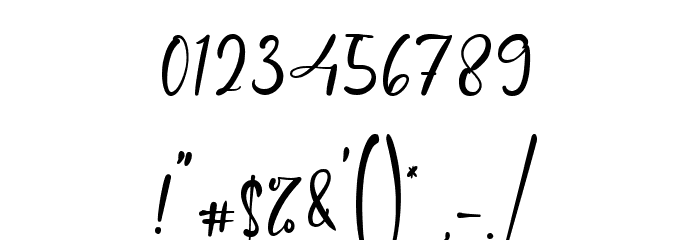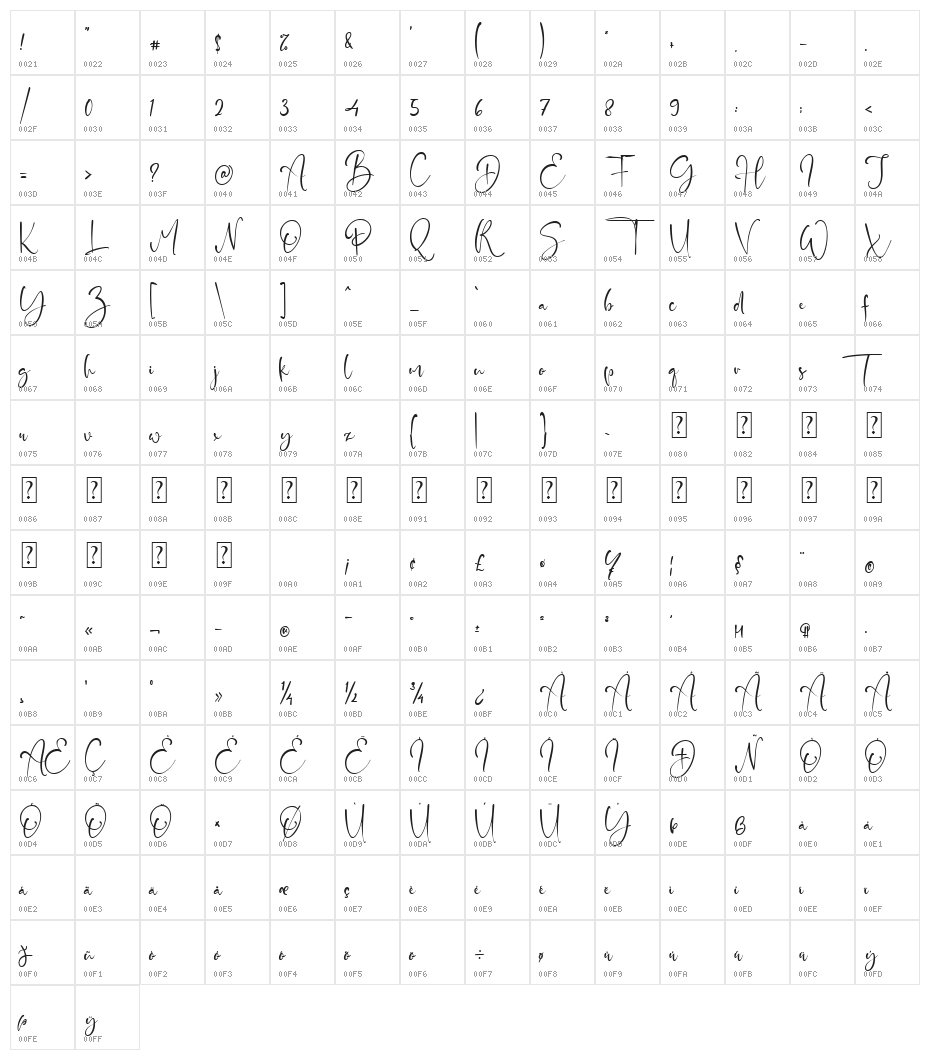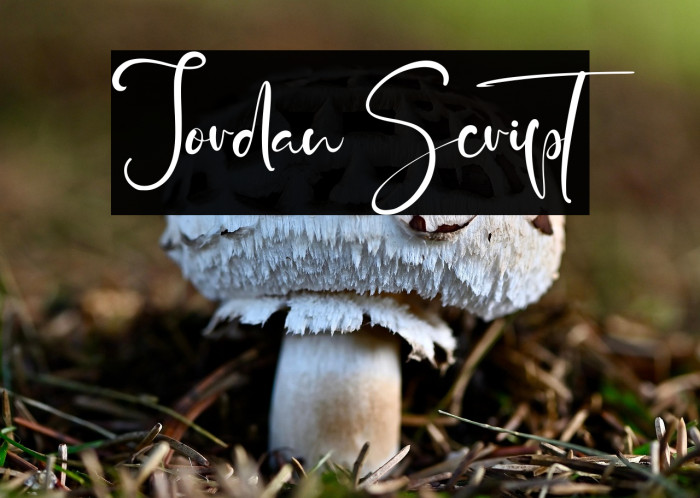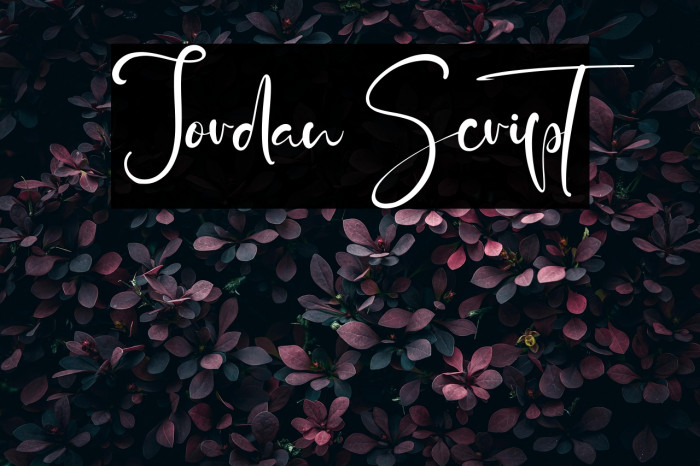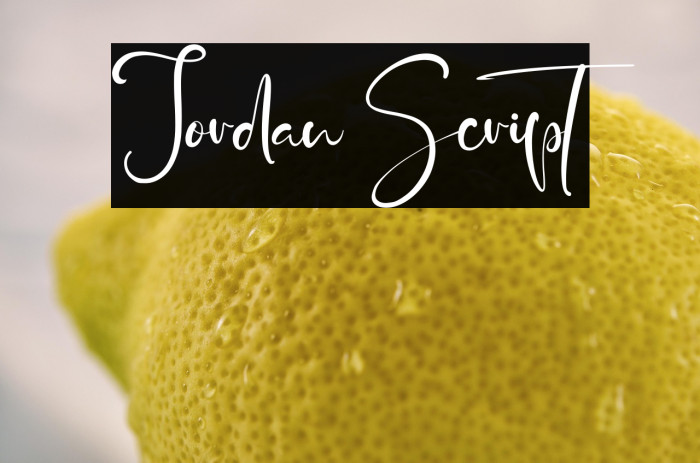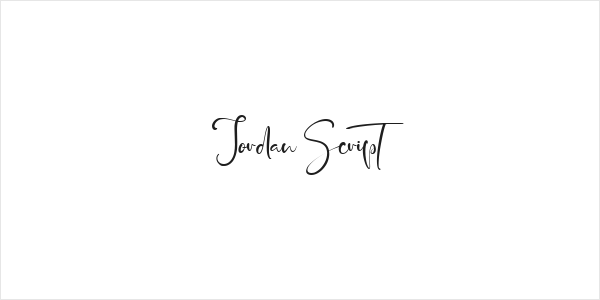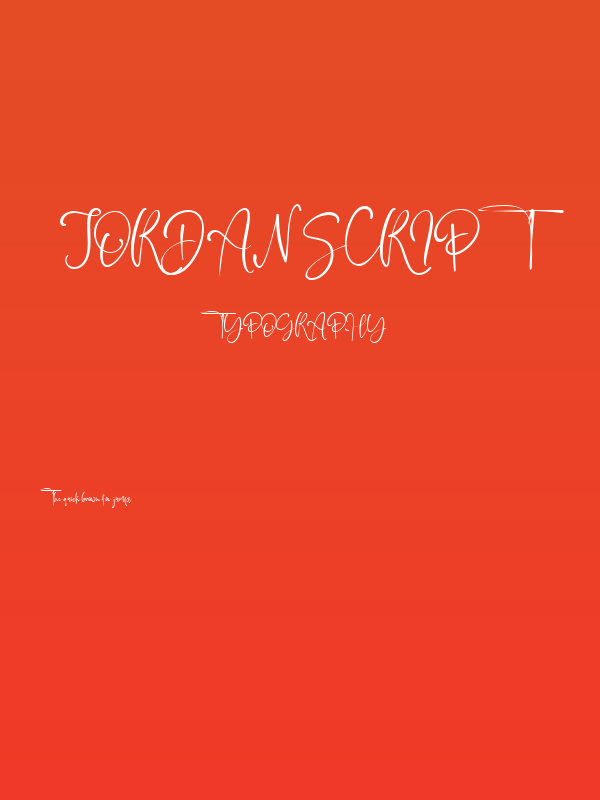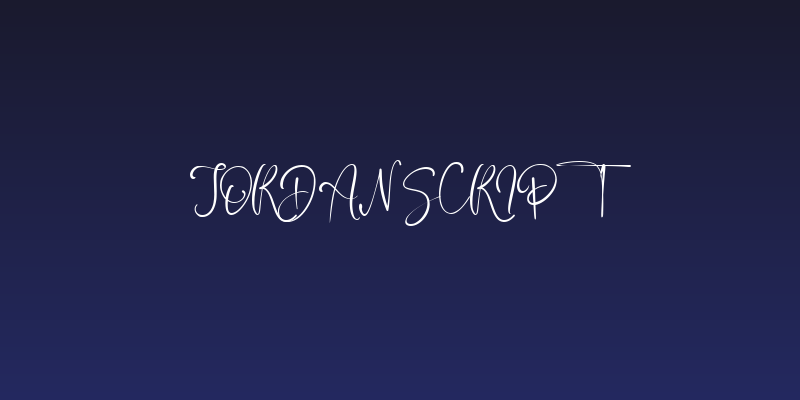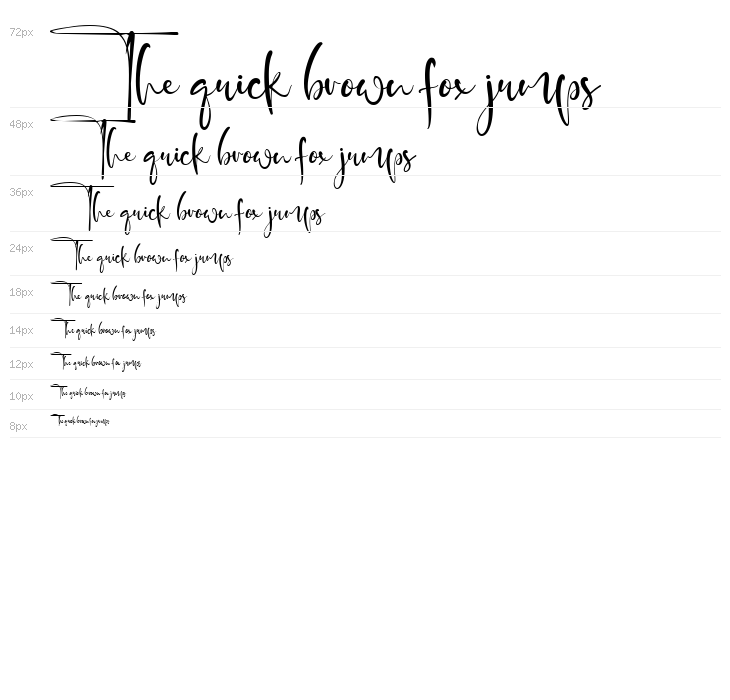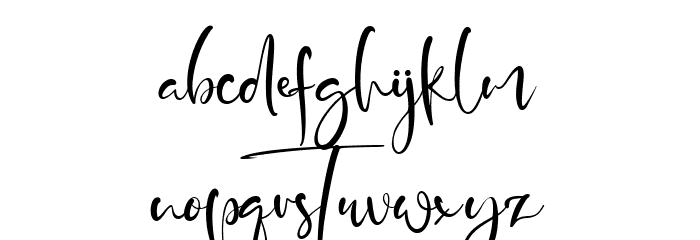
Jordan Script Font
Jordan Script Description
This font exhibits a lively and flowing script style, characterized by its elegant and cursive letterforms. The uppercase letters are tall and slightly slanted, with sweeping curves and loops that give a sense of motion and grace. The lowercase letters maintain a consistent flow, with some characters featuring unique flourishes that add personality. The numerals are designed to complement the script style, maintaining the same fluidity and elegance. Special characters are integrated seamlessly, ensuring a cohesive look across all glyphs. This font's overall appearance is both sophisticated and approachable, making it suitable for a variety of creative applications.